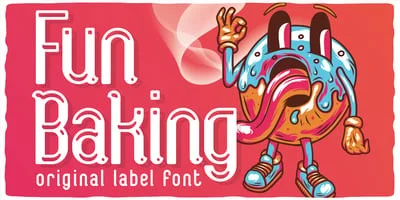
Fun Baking Font
Fun Baking Font is perfect for bakeries, cupcake shops, children's baking products, home baking brands, sweet packaging, cake decorating businesses, and delightful culinary communications. This playful typeface brings joyful sweetness and baking enthusiasm to delicious design projects.
Fun Baking Font is exciting because it captures the joy and sweetness of home baking with its cheerful letterforms that convey happiness and culinary delight while maintaining exceptional readability and appetizing appeal across baking and confectionery applications.
The Fun Baking Font family includes regular and playful variations with baking-inspired character elements and sweet styling details. This delightful collection provides designers with cheerful options for creating memorable and deliciously fun brand experiences.
Fun Baking Font offers designers access to a delightfully crafted typeface that embodies the joy, sweetness, and playful spirit of home baking and confectionery arts. This cheerful font features playfully designed letterforms with baking-inspired details that create immediate associations with sweet treats, baking happiness, and culinary joy. The typeface showcases fun proportions and sweet aesthetics that enhance baking communications while maintaining professional functionality and broad appeal. Its playful character makes it particularly suitable for bakeries and confectionery brands that require typography capable of conveying baking joy, sweet delight, and culinary happiness. Fun Baking Font delivers exceptional sweet impact for applications where serious fonts feel inappropriate for playful baking communications and delightful culinary branding. The font's joyful appeal and sweet aesthetic make it an essential tool for designers working on projects that require typographic expression of baking happiness, culinary joy, and sweet delight that resonates with audiences seeking authentic baking experiences and delightful visual communication.